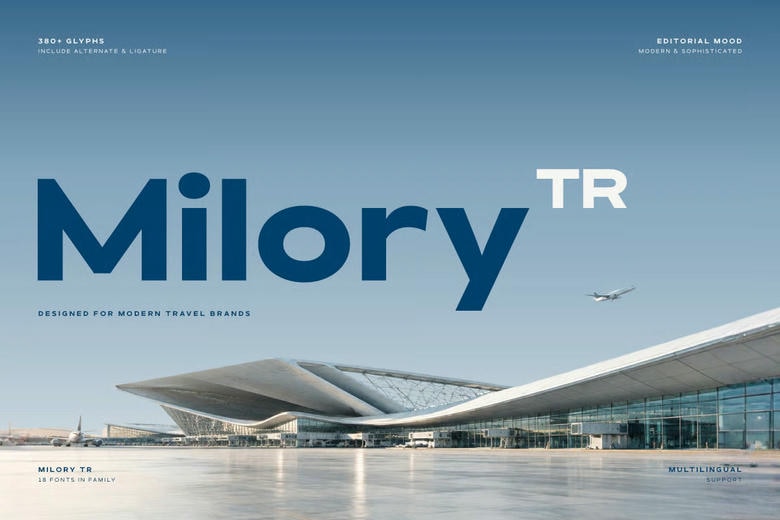
Milory TR Font
Milory TR is a wide geometric sans-serif font designed for today’s travel and tourism industry. Its clean lines and sharp shapes create a professional, high-end appearance.
Milory TR is easy to read both on screens and in print. It works well for booking platforms, airport kiosks, travel websites, and cruise apps. The wide letters make details like flight times and hotel listings clear, easy to find, and visually appealing.
Milory TR Sans Serif Font